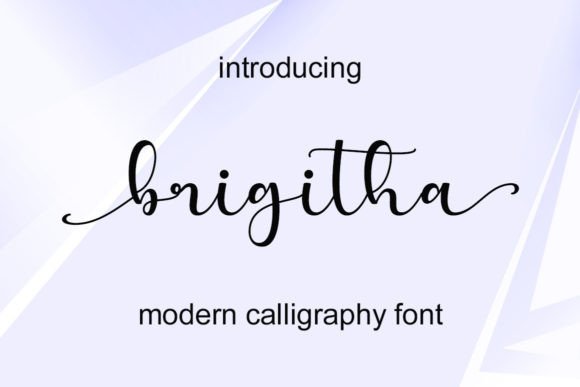
The Magical World of Brigitha Font: A Designer’s Delight
I’ll never forget the time I was working on a project for a client’s birthday card. I had all the design elements in place – the perfect image, the right colors, and a clear idea of the overall aesthetic. But, as I sat staring at my computer screen, I just couldn’t seem to find the right font. The client’s name was special, and I wanted a font that would do it justice. That’s when I stumbled upon Brigitha Font, and let me tell you, it was love at first sight! 💕
A Personal Review of Brigitha Font
As a designer, I’m always on the lookout for fonts that can elevate my projects and make them stand out. Brigitha Font has quickly become one of my go-to’s, and for good reason. Here’s what I love about it:
- ✨ Enchanting handwritten feel: Brigitha has a unique, hand-crafted look that’s perfect for adding a personal touch to any project.
- ✅ Versatility: This font can be used for everything from greeting cards to headlines, making it a great addition to any designer’s toolkit.
- 💫 PUA encoded: Brigitha is PUA encoded, which means you can access all of the glyphs and swashes with ease. This makes it easy to customize your text and add a little extra something special to your designs.
Of course, no font is perfect, and Brigitha is no exception. Here are a few small quirks to keep in mind:
- 🤔 Limited use in very formal contexts: While Brigitha is versatile, it’s not the best choice for very formal or professional projects. Its handwritten feel is better suited for more creative or personal applications.
- ⚠️ May require some experimentation: With so many glyphs and swashes available, it can take some time to get used to navigating the font and finding the perfect combination for your project.
The Story Behind Brigitha Font
Brigitha Font was designed with the intention of creating a unique, handwritten font that would add a touch of elegance and whimsy to any project. The designer, imaginary designer name, drew inspiration from traditional calligraphy and modern digital design to create a font that’s both beautiful and functional. With its PUA encoding and wide range of glyphs and swashes, Brigitha is the perfect choice for designers who want to add a little extra something special to their work.
| Is Brigitha Font PUA encoded? | Yes, Brigitha Font is PUA encoded, which means you can access all of the glyphs and swashes with ease. |